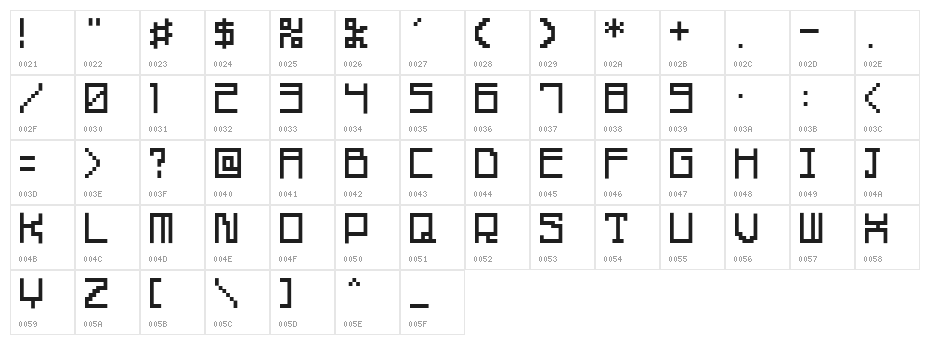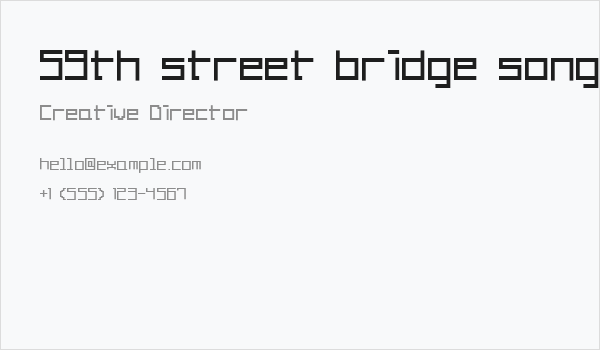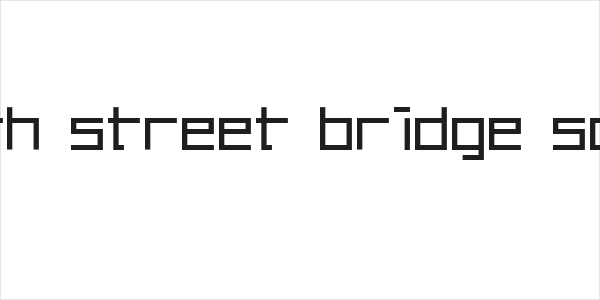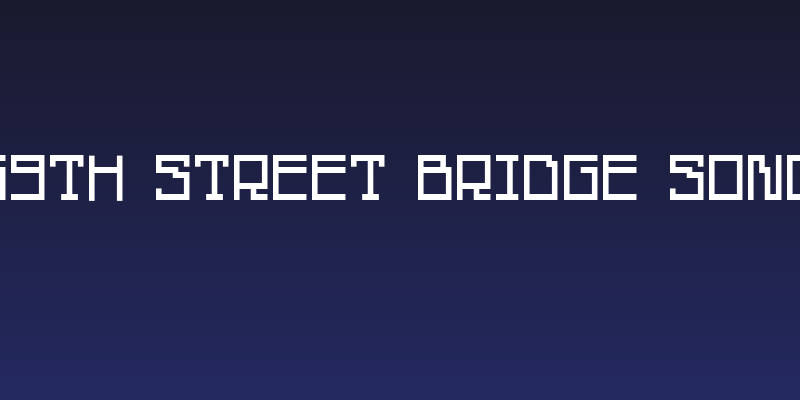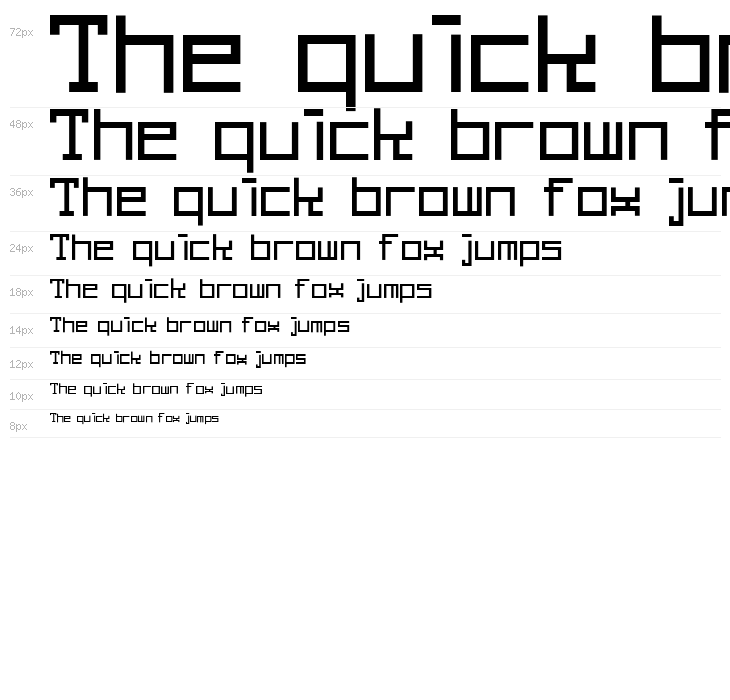
59th street bridge song Font
59th street bridge song Description
This font features a pixelated, blocky design reminiscent of early digital displays and video games. Each character is constructed with a uniform grid-like structure, giving it a distinctly retro and technological feel. The uppercase and lowercase letters maintain a consistent height, with sharp angles and straight lines dominating the design. Numbers and special characters follow the same aesthetic, ensuring a cohesive look across all glyphs. The font's simplicity and clarity make it highly readable, even at smaller sizes, while its unique style adds a touch of nostalgia and modernity simultaneously.
| Overall Style | Retro, Digital |
| Proposed Projects | Ideal for video game design, tech-themed posters, digital art projects, and retro-style branding. |